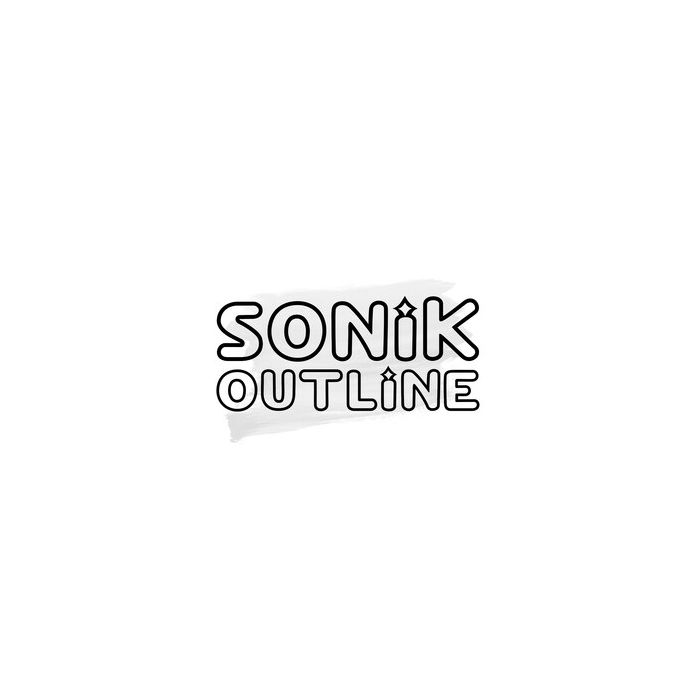
The Sonik Outline font is an interesting addition to your current design. The model is attractive and classy for a cutout sticker font, so it is perfect for your classy design collection. You can modify it according to your taste!